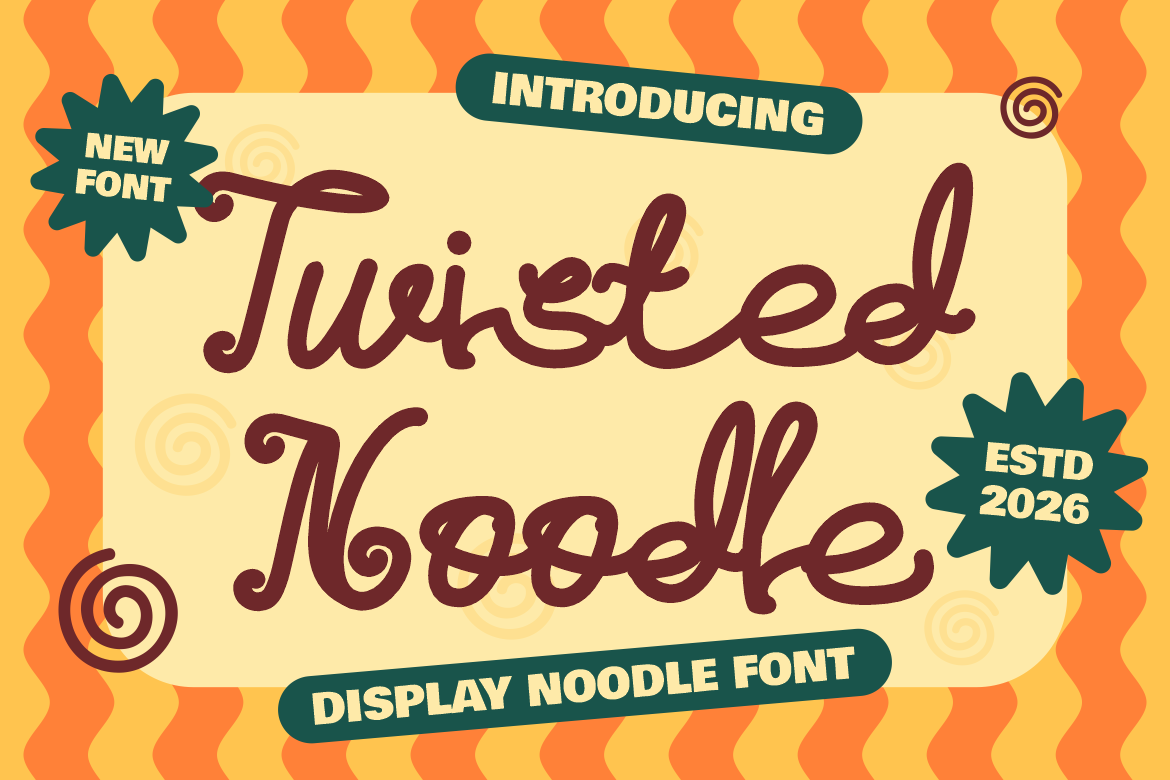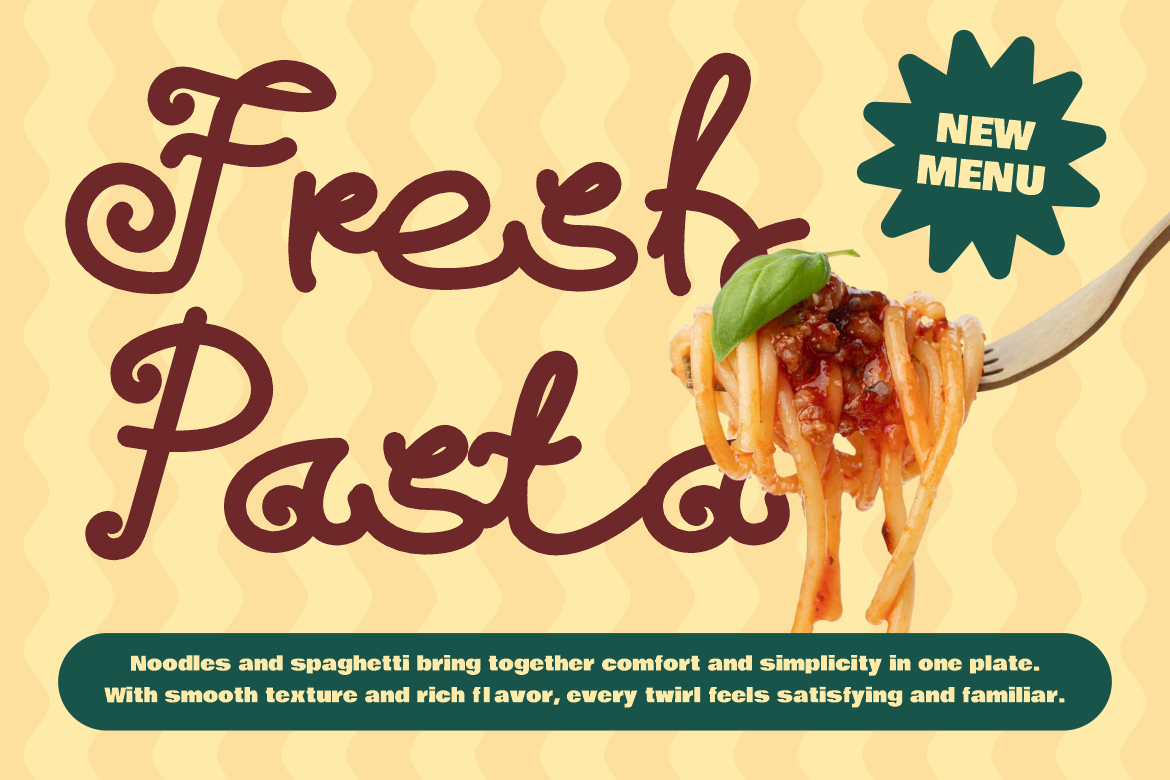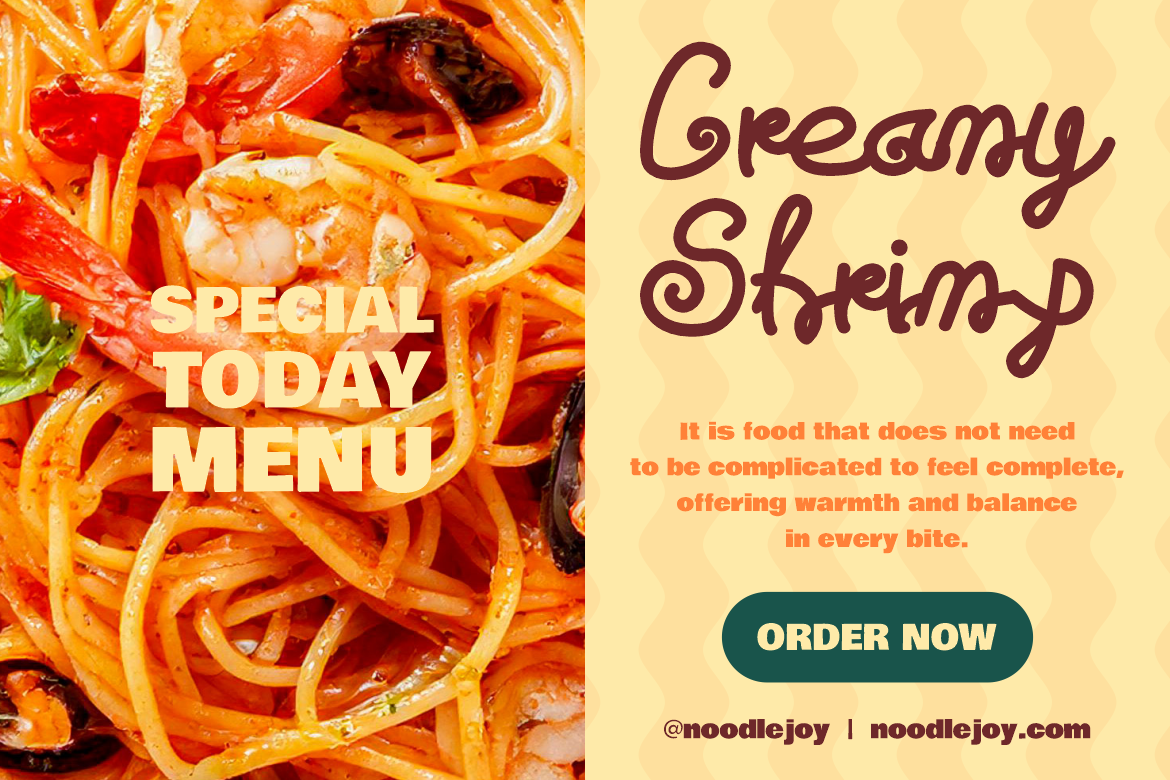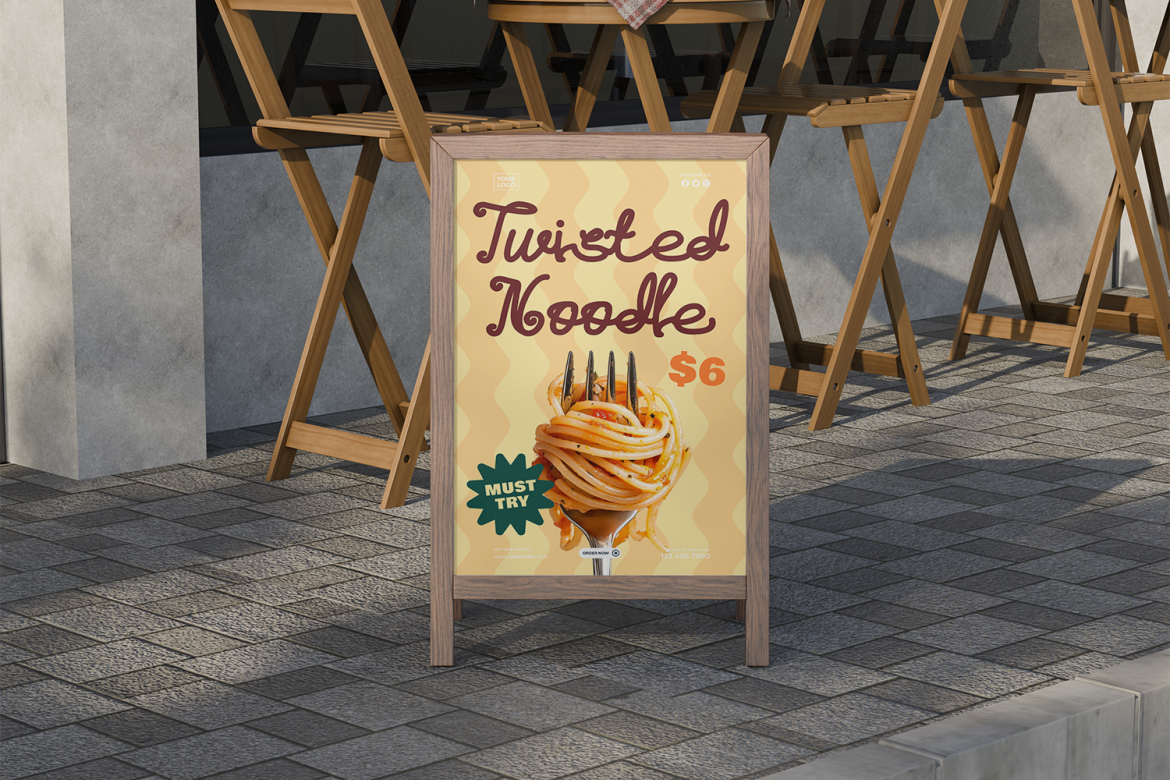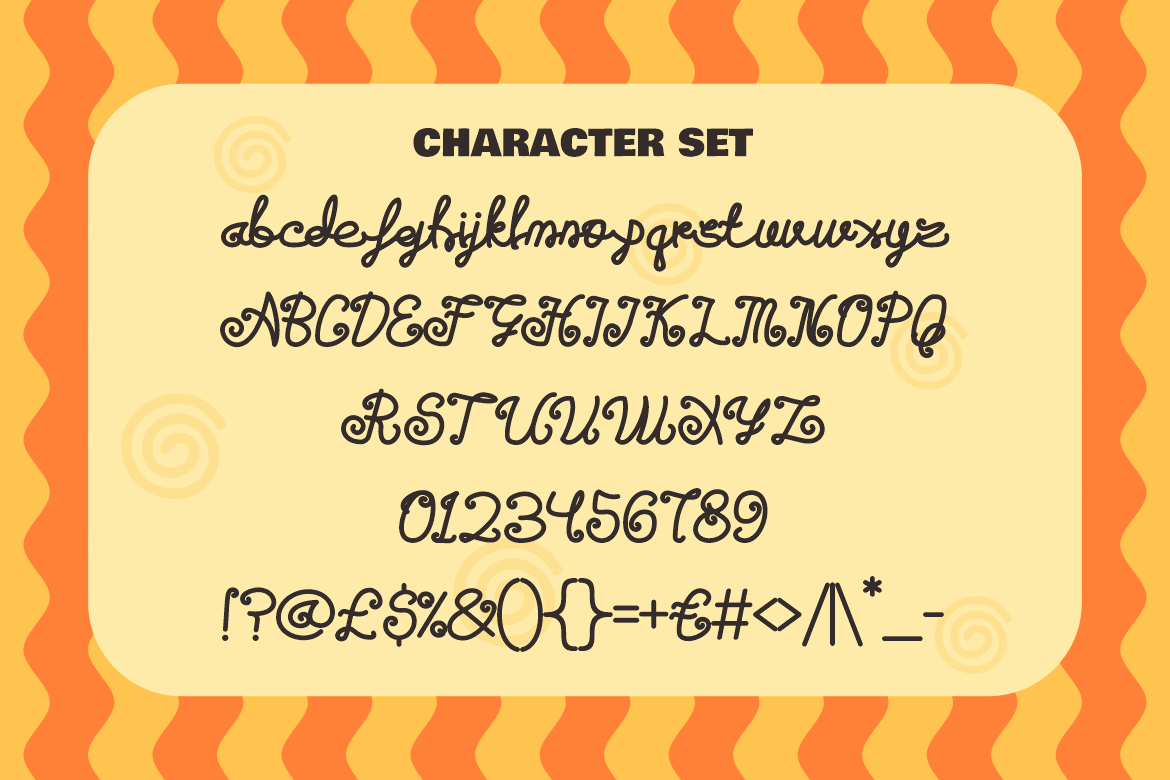
Twisted Noodle Display Noodle Font brings flowing curves, rounded strokes, and lively connected forms. Its letters feel flexible, twisted, and inspired by noodles, pasta, and handmade lettering. The energetic structure creates a friendly voice for noodle logos, food branding, restaurant identity, and café promotions. It works naturally for pasta shops, ramen restaurants, noodle bars, food trucks, and casual dining businesses. Designers can also use it for menu titles, poster headlines, product packaging, shop signs, advertising graphics, and promotional campaigns.
The font fits many food businesses beyond noodles and pasta. It can support pizza branding, bakery promotions, snack products, sauce packaging, dessert shops, and street food concepts. Its playful personality also works for family restaurants, cooking brands, kitchen products, and takeaway services. Twisted Noodle Display Noodle Font gives short business names strong recognition while keeping them warm and approachable. Use it for restaurant posters, menu boards, food labels, product stickers, social media advertising, business cards, magazine titles, and book covers.
Each character combines smooth movement with decorative curls that create a memorable handmade feeling. The font also suits creative projects beyond food, including craft projects, greeting cards, birthday invitations, stickers, and event posters. Its expressive forms work for youth campaigns, casual brands, café menus, restaurant promotions, and playful business identities. The character set supports uppercase, lowercase, numbers, punctuation, and multilingual text. This flexibility helps designers build consistent logo systems, packaging layouts, advertising graphics, digital content, printed menus, and promotional materials.